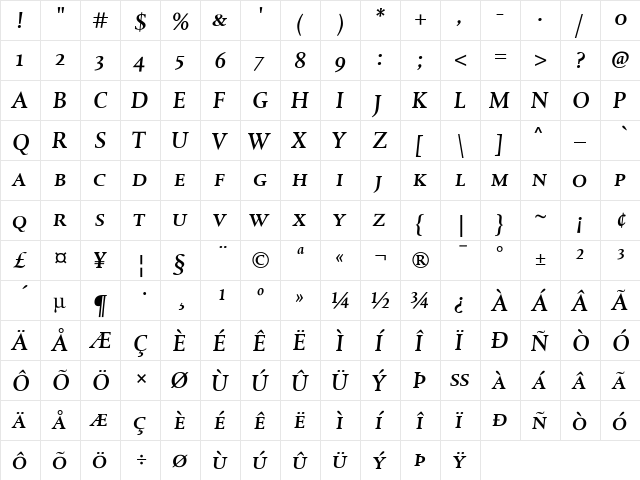
DTLAlbertinaTCaps ItalicMedium
Design Context for DTLAlbertinaTCaps Typeface
DTLAlbertinaTCaps offers clean, dependable letterforms without strong stylistic allegiance, making it a practical choice for designers who need flexibility. The slanted form adds forward momentum and visual energy.
Pro Tip: Use DTLAlbertinaTCaps for emphasis, pull quotes, and subheadings where its slanted energy can add rhythm to the layout.